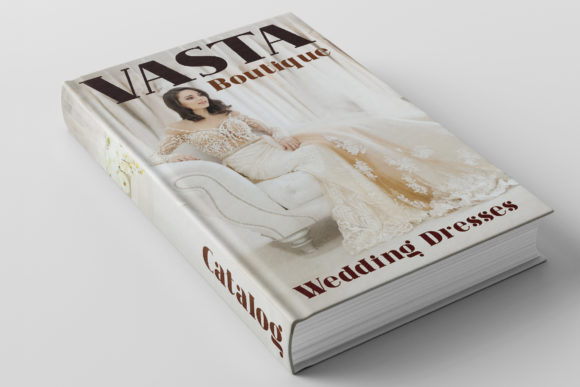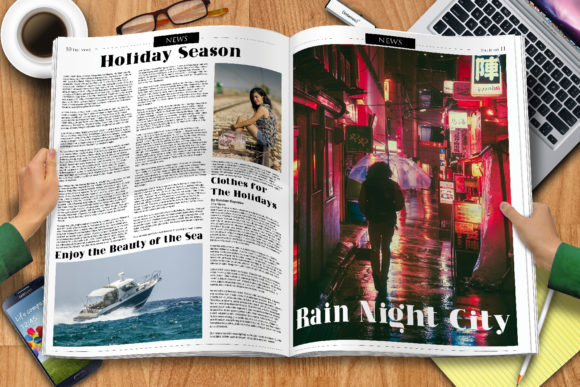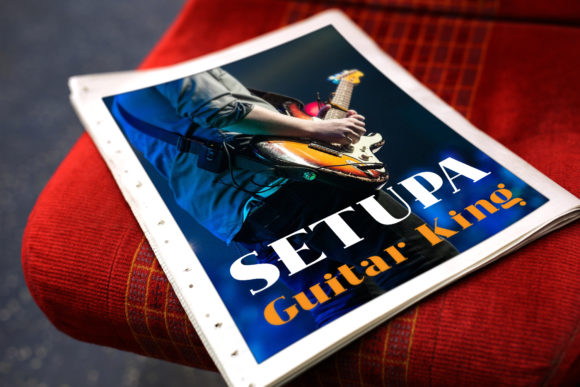
Introduction to Katana Font
Katana is a modern bold-lettered serif font.
Incredibly versatile, this font fits a wide pool of designs, elevating them to the highest levels Add this font to your favorite creative ideas and notice how it makes them come alive.